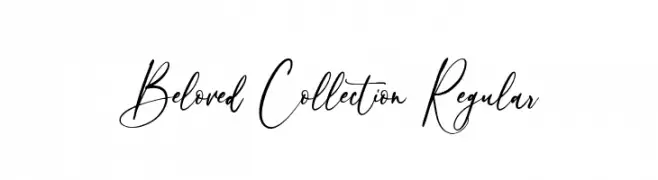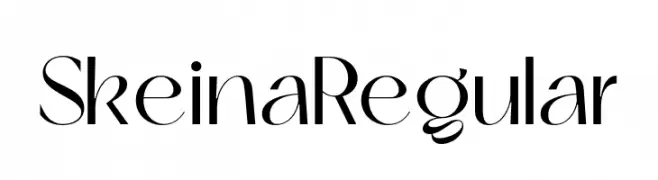
A modern, elegant script font with flowing, cursive letters and graceful flourishes.
An elegant, flowing script font with artistic loops and playful embellishments.
A bold, elegant script font with flowing, interconnected characters.
A whimsical and playful script font with decorative swashes.
A bold, geometric font with a modern and futuristic style.
An elegant, flowing script font with a handwritten style.
An elegant script font with ornate uppercase and fluid lowercase letters.
A playful, casual handwritten font with smooth, flowing lines.
A bold, playful handwritten font with rounded strokes and a casual style.
A modern, high-contrast font with elegant and stylish features.